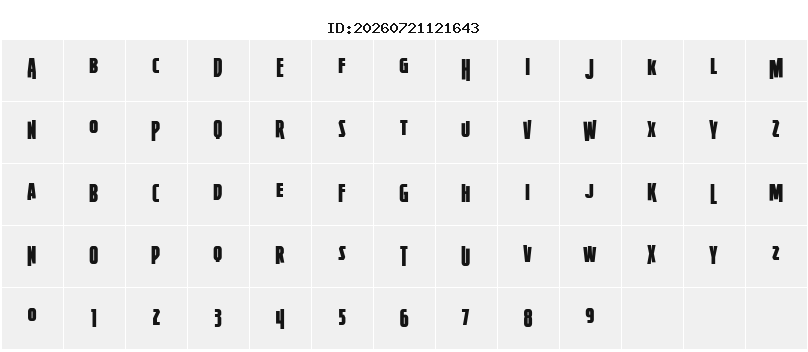
• Font Name: Firepower BB
• Designer: Nate Piekos. Blambot.com
About Firepower BB.ttf
Firepower BB.ttf is a modern, elegant sans-serif font designed for ultimate readability and visual harmony. Perfect for branding, headlines, web design, and print materials.